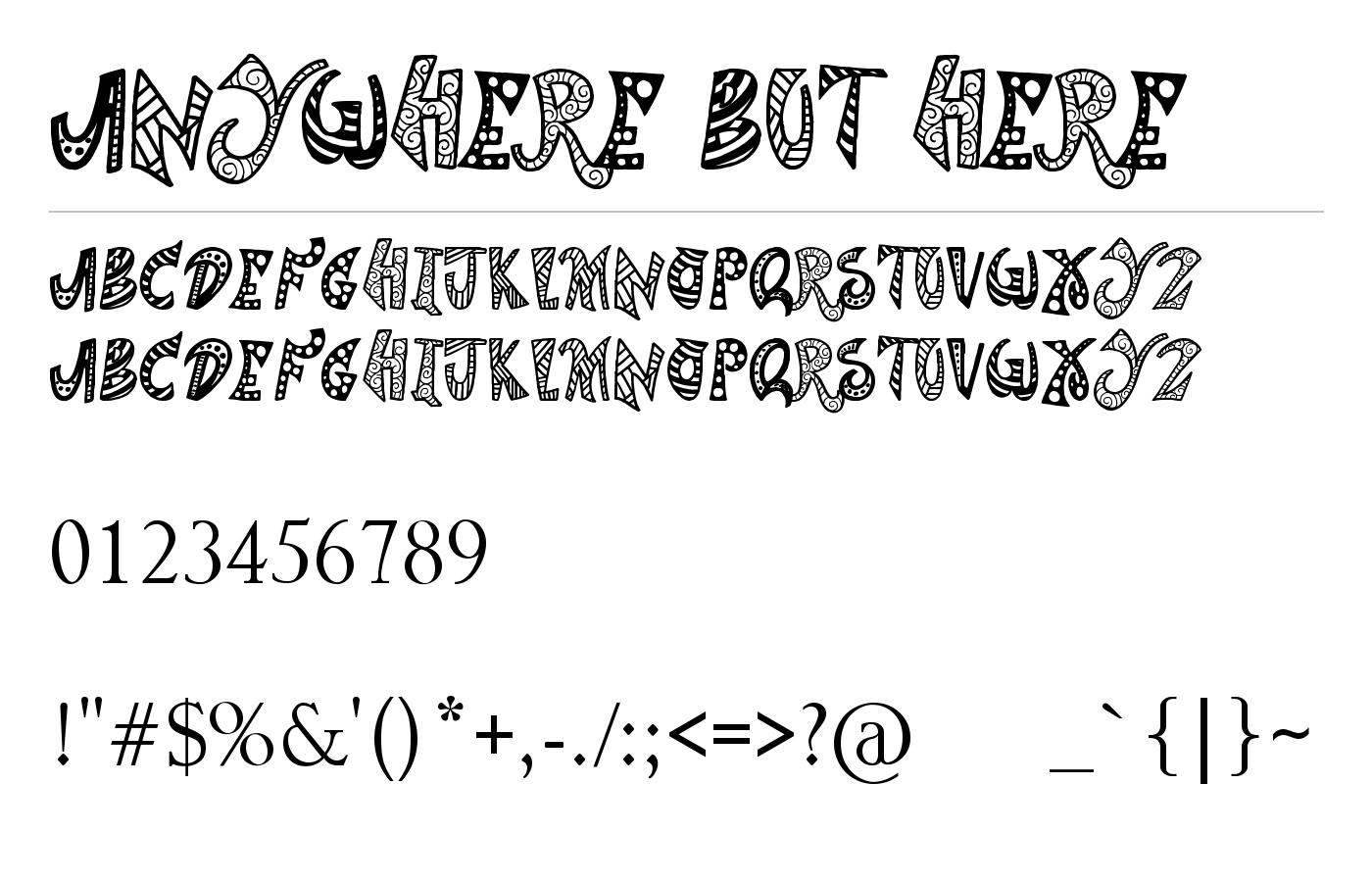
Anywhere But Home is a playful and decorative display font featuring bold, quirky uppercase letters adorned with intricate swirls, dots, and stripes. Its unique hand-drawn style makes it perfect for creative projects, fun posters, or branding that needs a spirited, artistic touch. This font truly stands out in headlines and titles where personality and charm are key.
Anywhere But Home Font